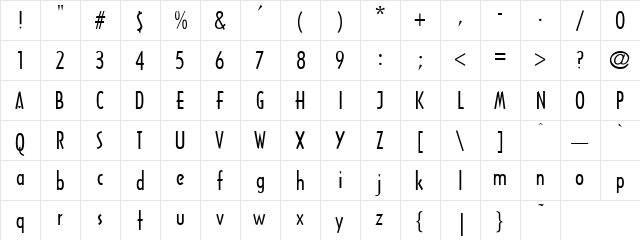
COSMI006 Regular
Design Context for COSMI006 Typeface
COSMI006 takes a measured approach to typography — its balanced proportions and neutral character make it a reliable workhorse for both digital and print work.